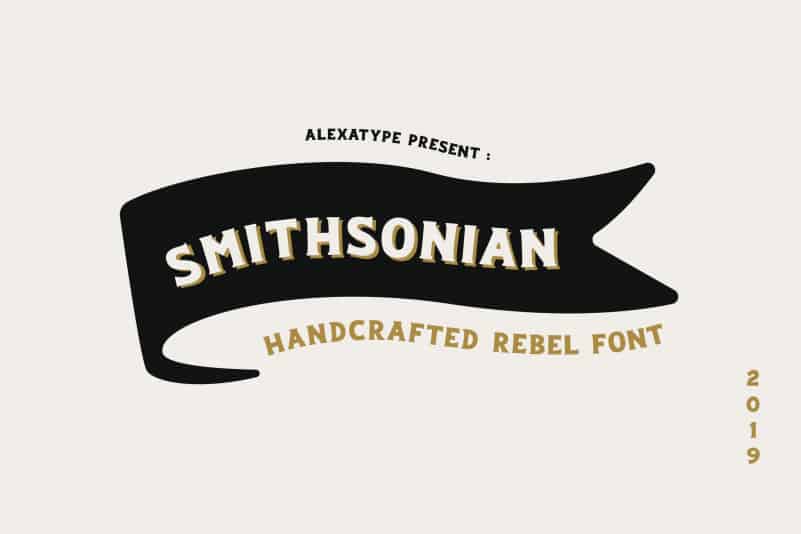
Bronson Serif Font
Bronson Serif Font is a adorable serif typeface. It retains the balance of being playful yet elegant. It has alternates for all the uppercase letters and some for the lowercase.
Comes in All caps as the default, with variation for the capital letters. Use both, Smithsonian & Smithsonian Shadow to create a handcrafted effect. The font works perfectly as a title, headlines,and logotype.